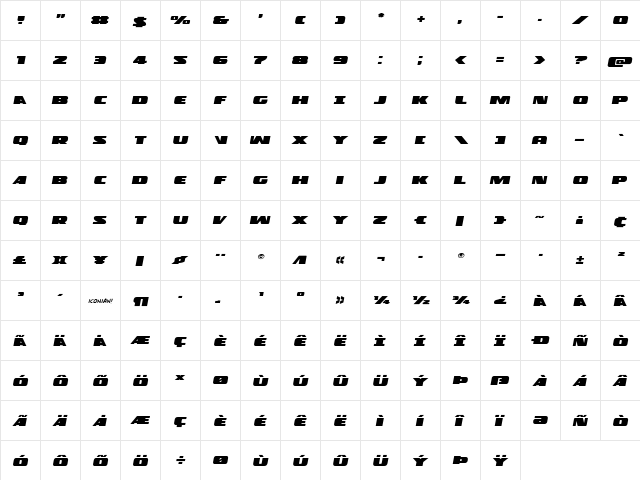
Police Cruiser Expanded Italic Expanded Italic
Design Context for Police Cruiser Expanded Italic Typeface
Police Cruiser Expanded Italic is a composed and adaptable typeface that performs quietly and consistently across a wide range of design contexts. Its italic angle brings a sense of urgency and motion to the letterforms.
Pro Tip: Try Police Cruiser Expanded Italic for annotation and caption copy alongside an upright companion — the contrast in angle creates a dynamic but ordered typographic system.